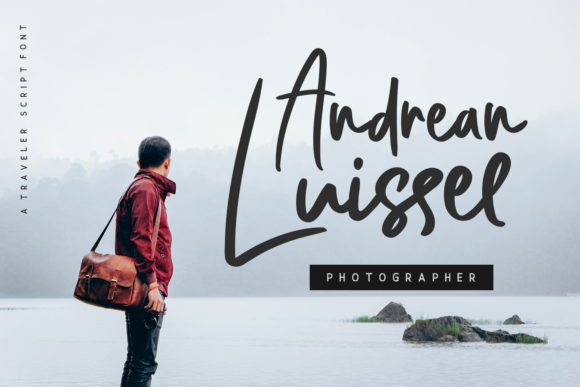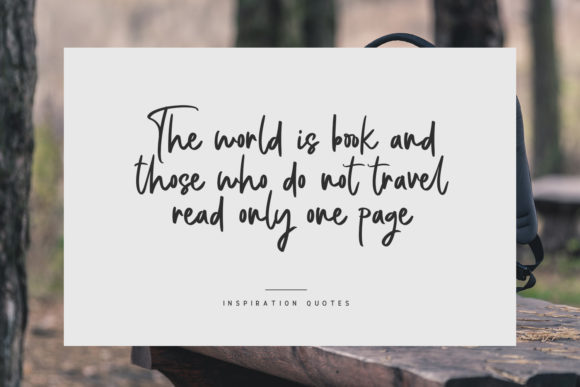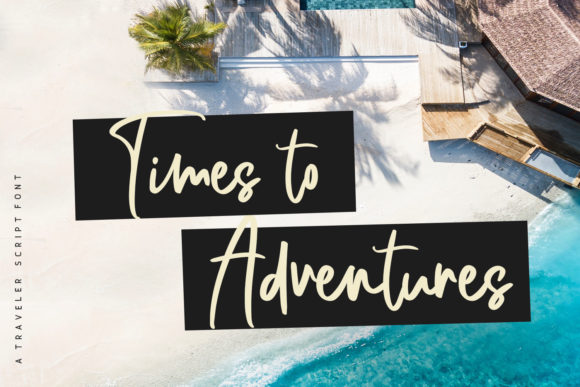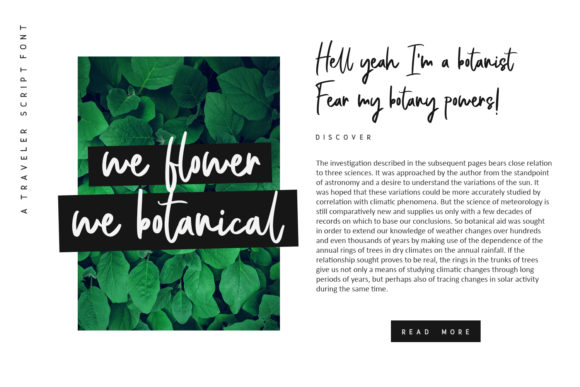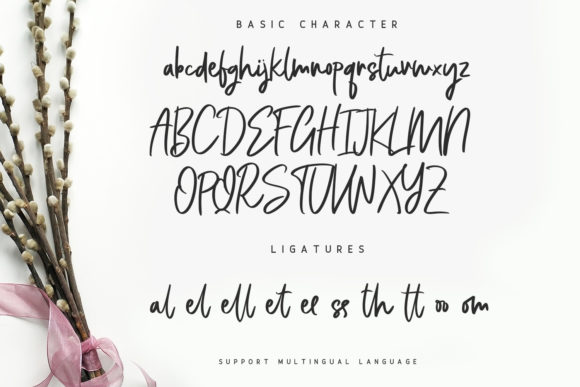
The Art of Handwritten Perfection: Discovering the Bellevue Script Font
Have you ever found yourself scribbling down ideas in a coffee shop, surrounded by the hum of creative energy? The rush of inspiration can strike at any moment, and for designers, capturing that perfect handwritten vibe is a dream come true. It’s in these moments that the Bellevue Script Font shines, offering a unique and elegant solution for any design project.
This beautiful handwritten font is designed to add a personal touch to logos, name cards, magazine layouts, invitations, headers, and even large-scale artwork. Its versatility makes it an invaluable tool for designers seeking to infuse their work with a sense of authenticity and charm. The Bellevue Script Font is a game-changer for those looking to elevate their designs and leave a lasting impression.
Bellevue Script Font Key Features
- Unique Characteristics: The Bellevue Script Font features a elegant, cursive script style with a touch of whimsy, making it perfect for creative and artistic projects.
- Style Options: The Bellevue Script Font comes in two styles: Regular and Bold, providing versatility for designers to create a range of visual effects.
Bellevue Script Font Review
The Bellevue Script Font is a beautiful, elegant script font that works well in various design contexts. ✨ It’s perfect for creating invitations, menus, and other materials that require a touch of sophistication and style. The font’s flowing lines and smooth connections make it ideal for text-heavy designs where readability is crucial.
The Bellevue Script Font also excels in providing a wide range of customization options, including various font weights, sizes, and color schemes. ✨ This flexibility makes it easy to adapt the font to different design styles and themes, ensuring a consistent look across various materials.
- ⚠️ The font may not be suitable for bold, headlines, or titles due to its delicate nature.
- ⚠️ It may be challenging to read in smaller font sizes, especially for individuals with vision impairments.
- ⚠️ The font’s script style can sometimes make it difficult to distinguish between similar letters, such as ‘b’ and ‘d’.
Overall, the Bellevue Script Font is a lovely addition to any designer’s toolkit. While it has some limitations, its elegance and customization options make it a great choice for a wide range of design projects.
Getting the Most Out of Bellevue Script
Bellevue Script is a beautiful, elegant font perfect for wedding invitations, quotes, and other creative projects. To get the most out of it, try combining it with other fonts and experimenting with different sizes, colors, and styles.
Bellevue Script is commonly used for:
Quotes and inspirational sayings
Book titles and headings
Blog posts and articles